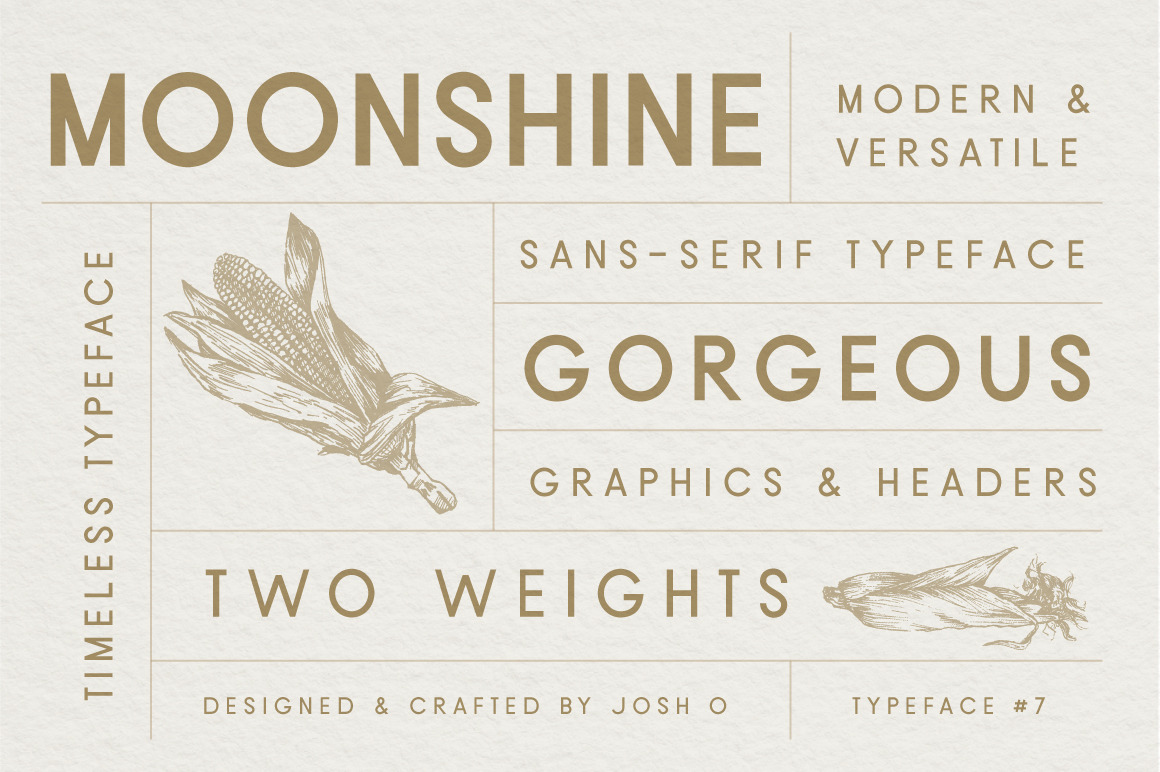
Moonshine Font | Classic Sans Serif
Moonshine Font, A Classic Sans-Serif in Two Weights
Create beautiful headings and graphics with Moonshine, a classic, clean, and versatile sans-serif font inspired by my hometown. Use Moonshine for headlines, body text, display graphics, wedding invitations, logos, or any project that requires a classic sans serif.
Uppercase Characters
Diacritics